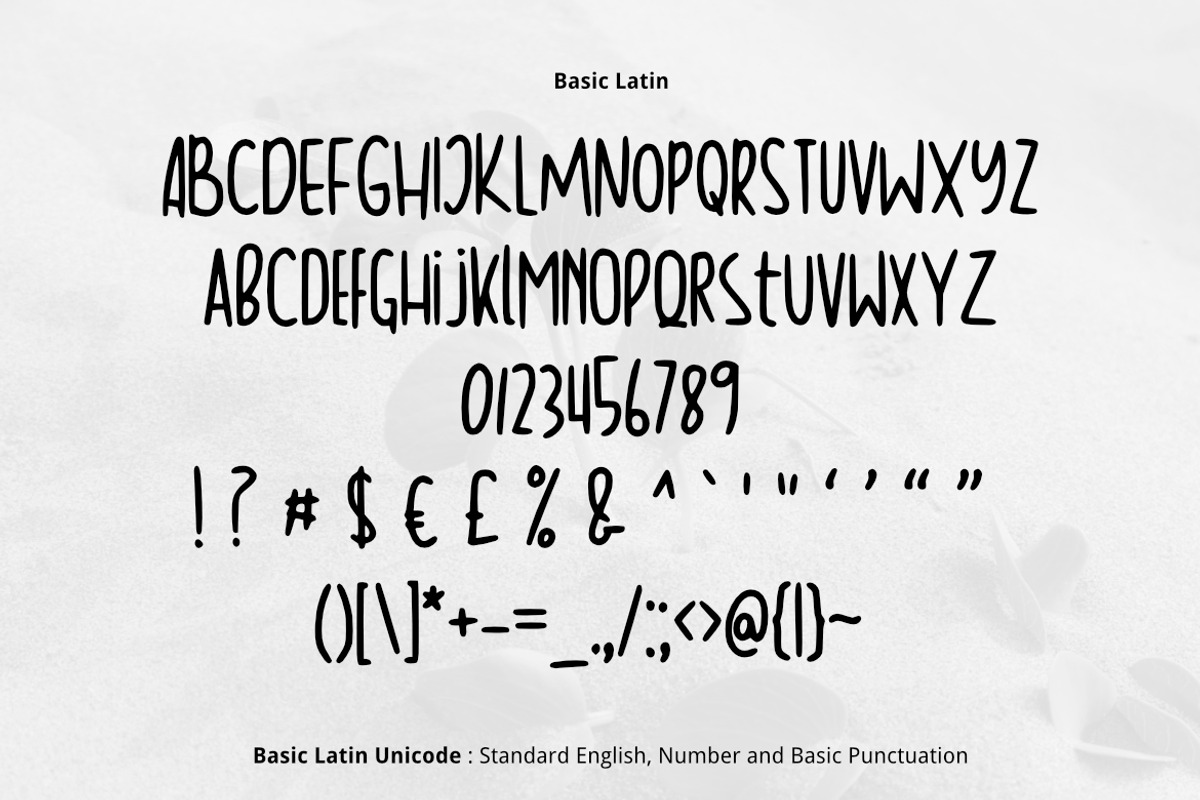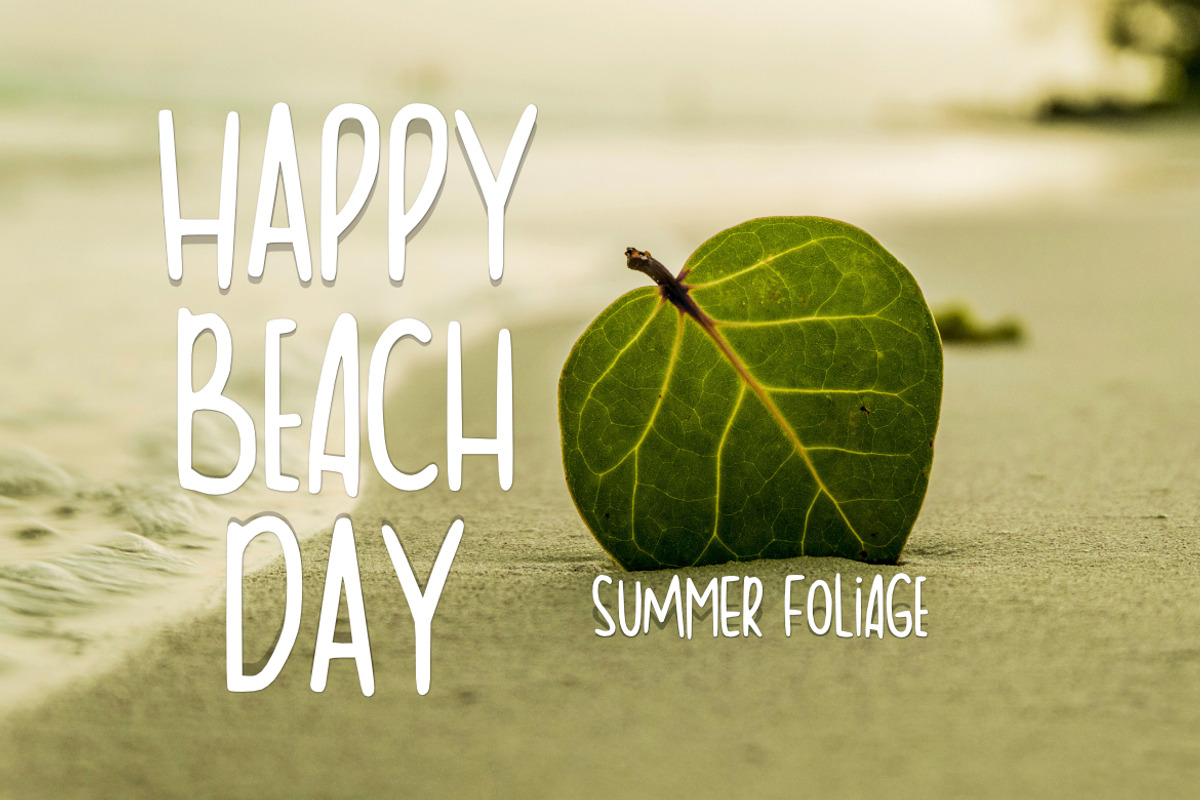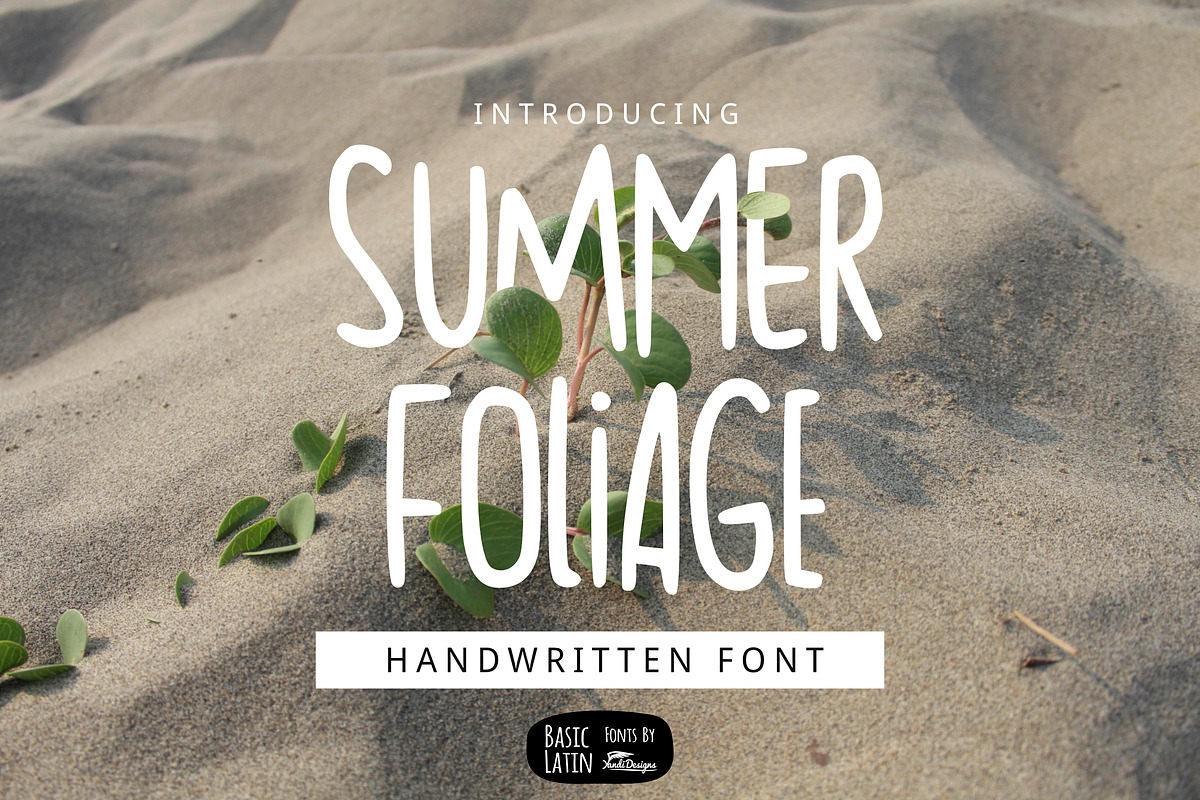
Summer Foliage Font
Summer Foliage is lovely , cute, simple, multipurpose handwritten font , suitable for many project children book, quotes, logo , heading , title etc. Summer and holiday font.
Summer Foliage Font by YandiDesigns fits naturally into Branding, posters, packaging, typography.